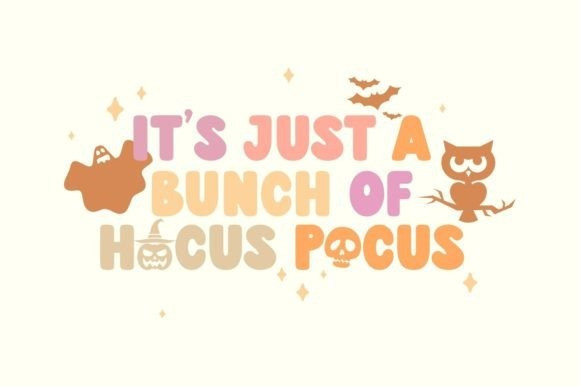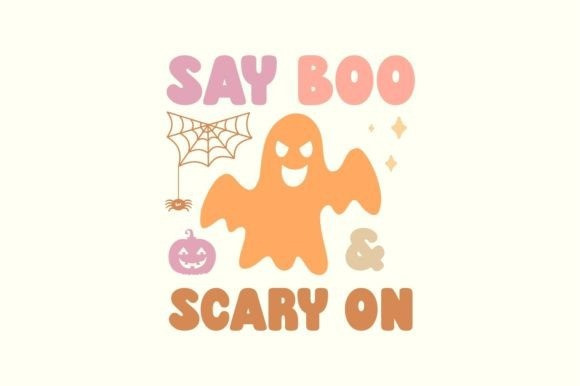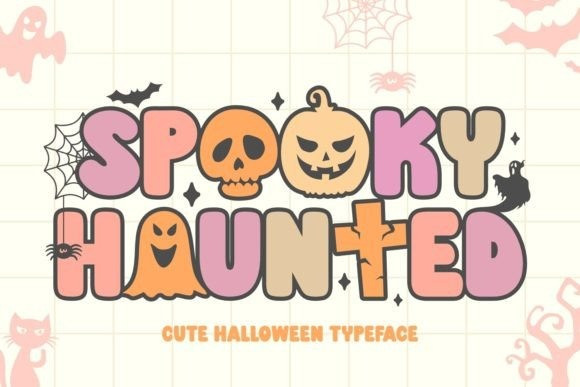
Spooky Haunted Font
Spooky Haunted Font Bold and chilling yet endearingly cute, this decorative typeface breathes life into every Halloween craft, breathes fear into every horror movie poster, and bestows a unique, spectacular look to t-shirts and other projects. With its roots in a bygone era, Spooky Haunted lends an aura of retro nostalgia while also fitting perfectly into contemporary designs. Unleash your creativity with it for Halloween invitations or any spooky-themed endeavor and watch the magic unfold!